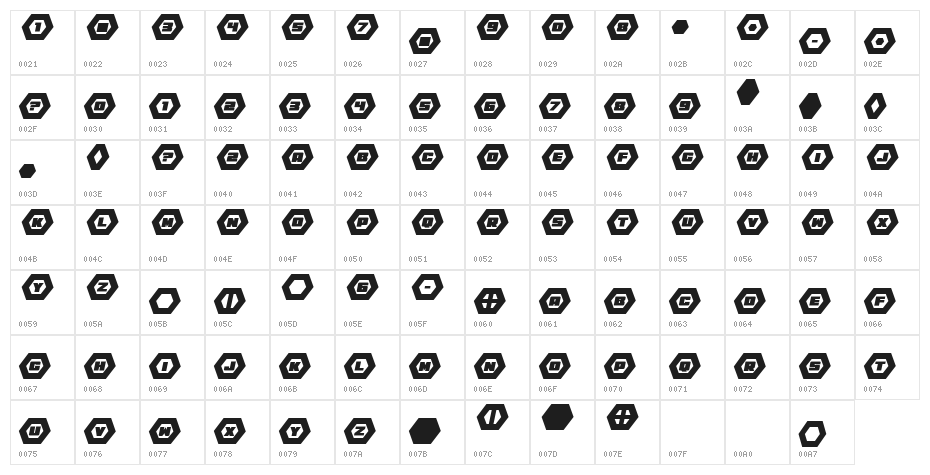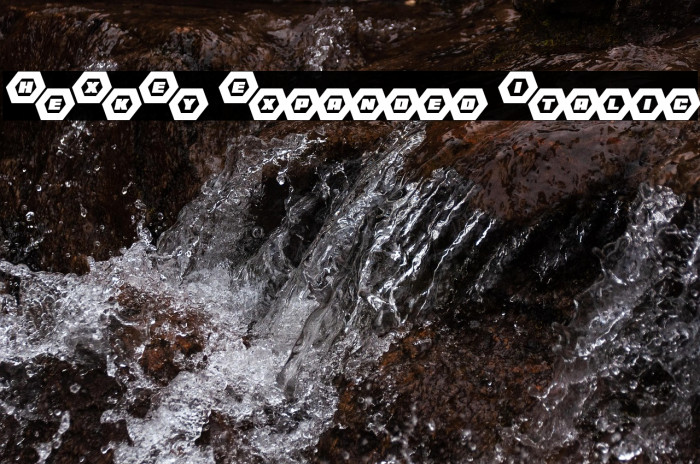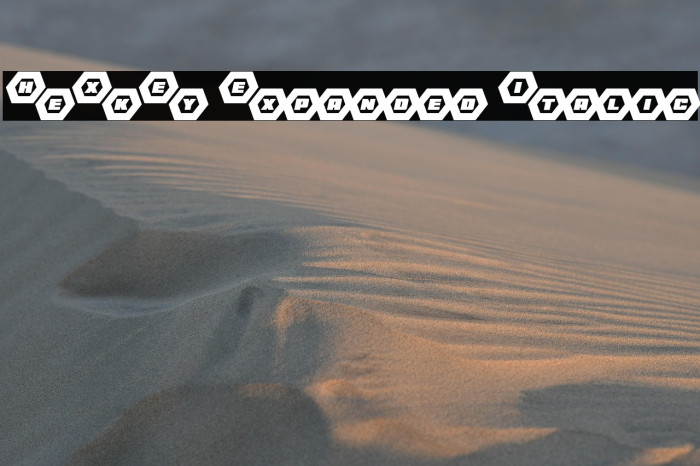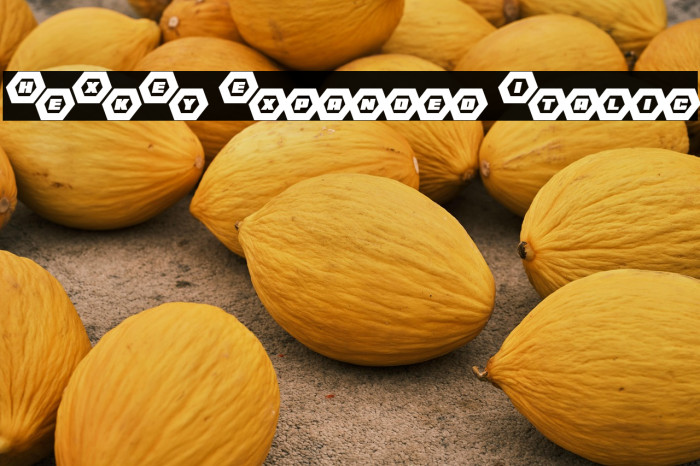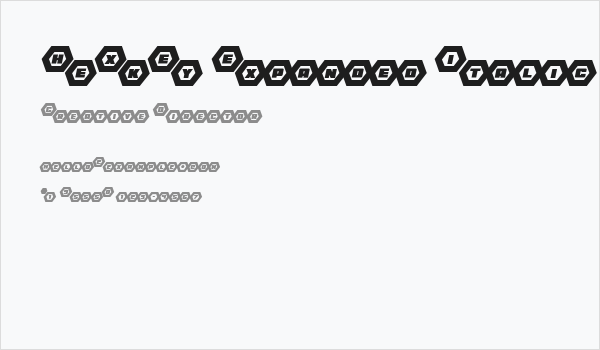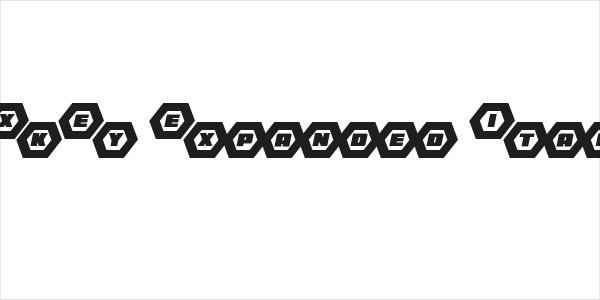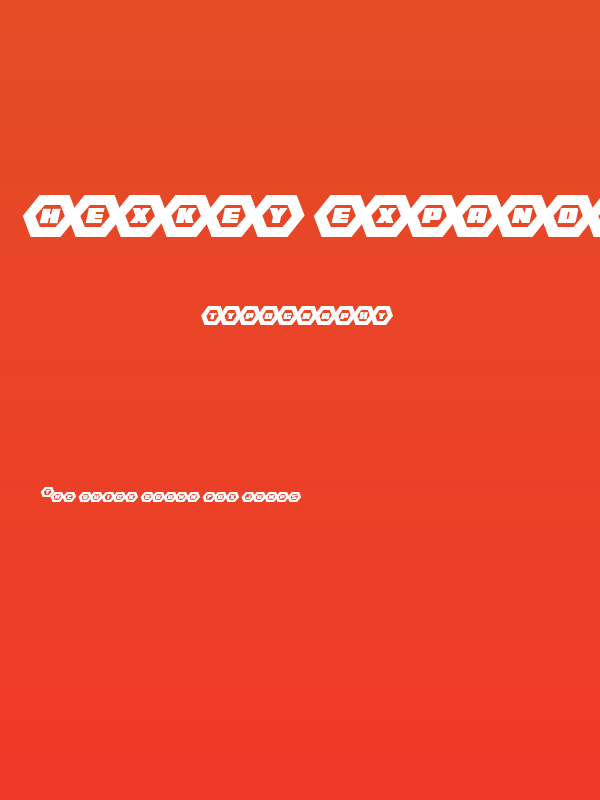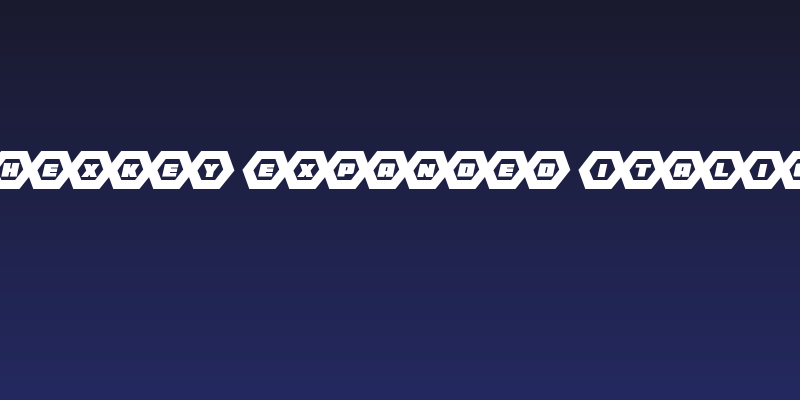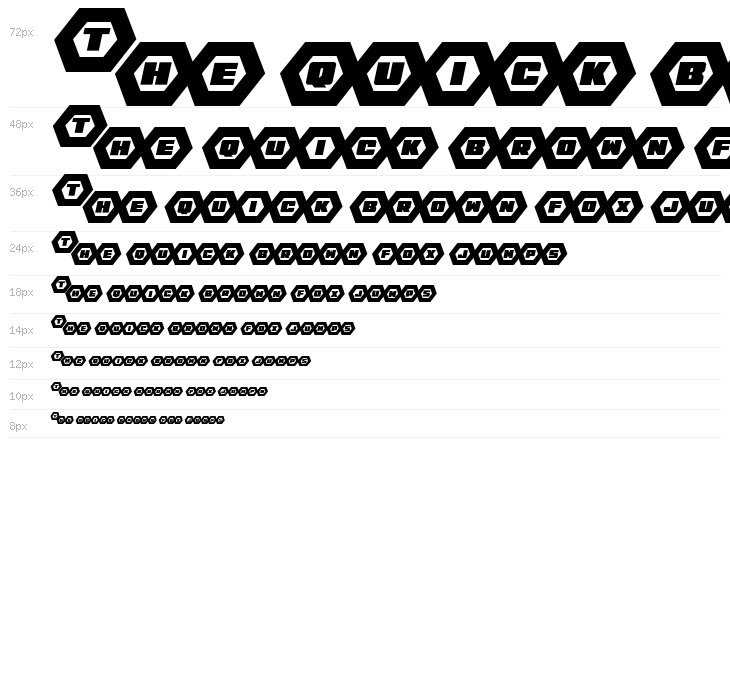
HeXkEy Expanded Italic Font
HeXkEy Expanded Italic Description
This font features a bold and geometric design, with each character enclosed within a hexagonal shape. The style is distinctly modern and futuristic, making it stand out with its unique structure. The characters are italicized, adding a dynamic and forward-leaning appearance. The expanded width of the font gives it a spacious feel, allowing each letter to be clearly distinguished within its hexagonal boundary. The high contrast between the thick, bold lines and the negative space within the hexagons enhances readability while maintaining a striking visual impact. This font is ideal for projects that require a strong, attention-grabbing typeface with a modern and unconventional aesthetic.
| Proposed Projects | Ideal for futuristic branding, tech-related logos, video game titles, and sci-fi themed posters. |